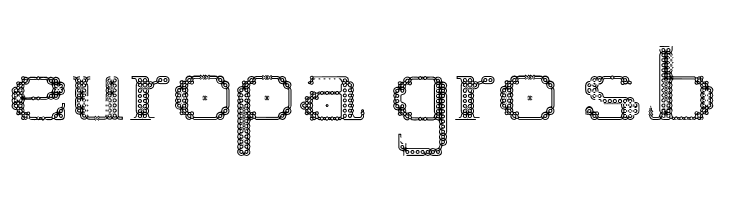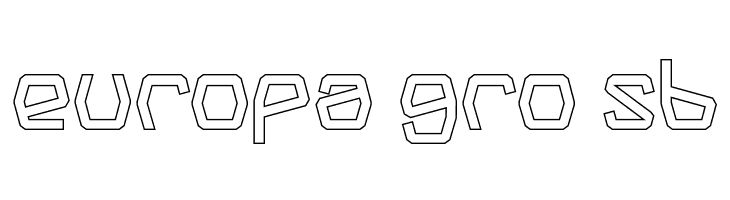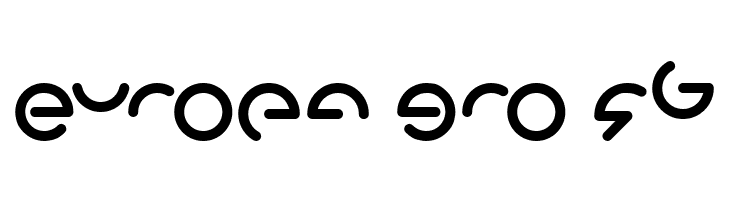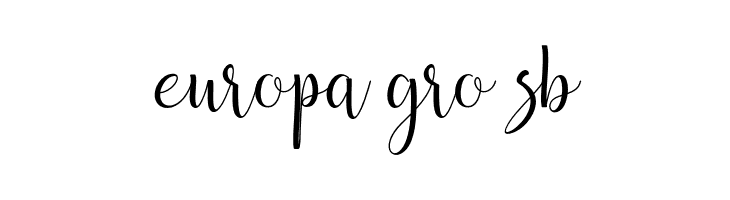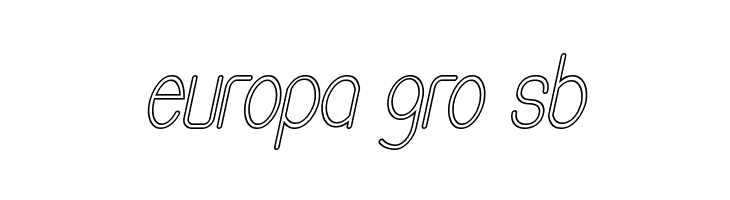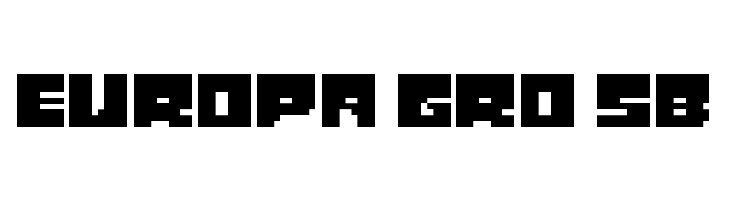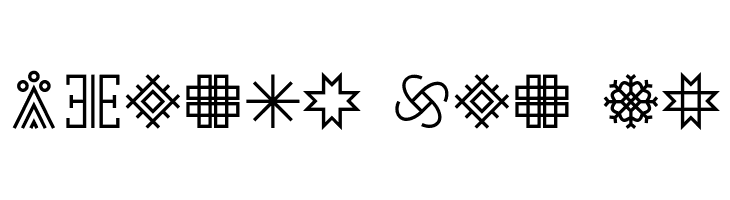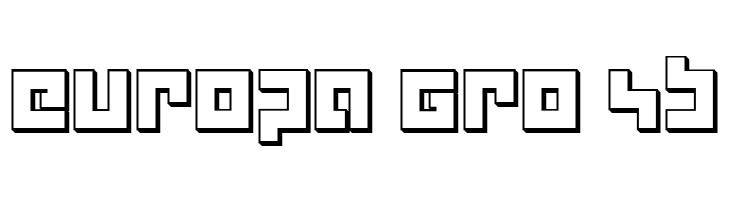
A decorative font with a mechanical, textured design using circles and lines.
A geometric, hollow font with angular lines and a modern, futuristic style.
A bold, futuristic font with geometric, rounded shapes.
An elegant, cursive font with a graceful, handwritten style.
A modern, hollow italic font with outlined characters and a dynamic style.
A bold, pixelated font with a retro, digital aesthetic.
A set of decorative symbols inspired by traditional Latvian motifs.
A decorative typeface featuring cartoonish characters with unique expressions.
A modern, high-contrast font with bold lines and artistic curves.
A bold, geometric font with a 3D effect and outlined characters, perfect for modern and digital themes.